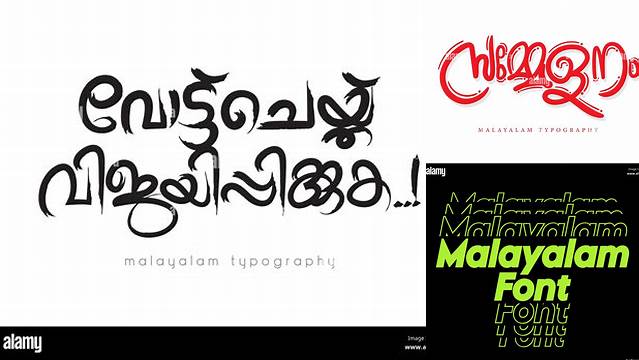
Malayalam Calligraphy Fonts Generator: A Comprehensive Guide
Hey guys! Ever wanted to spice up your Malayalam text with some seriously cool fonts? Well, you're in the right place! Today, we're diving deep into the world of the best Malayalam calligraphy fonts generators. We'll explore what makes a great font, how to find the perfect one for your needs, and even touch on some handy tips and tricks to make your designs pop. Get ready to transform your ordinary text into extraordinary art! So, let's jump right in.
What Makes a Great Malayalam Calligraphy Font?
So, what exactly are we looking for when we hunt down the best Malayalam calligraphy fonts? It's not just about pretty letters, folks. We're after fonts that are both visually appealing and functional. Here's a breakdown of the key features to consider:
- Readability: This is super important! A beautiful font is useless if nobody can read it. The best fonts strike a balance between style and clarity, ensuring that your message gets across without causing eye strain. Look for fonts with distinct letterforms, especially for characters that might look similar at first glance.
- Aesthetics: Of course, we want something that looks good! Calligraphy is all about the art, so choose fonts that match your desired style. Do you want something modern and sleek, or traditional and ornate? Consider the mood you want to create and select fonts that reflect that.
- Character Set: Malayalam has a unique alphabet, so it's essential to make sure the font includes all the necessary characters. Look for fonts that support a wide range of glyphs, including consonants, vowels, conjuncts, and special symbols. Without a complete character set, your text will end up looking incomplete and broken.
When selecting a Malayalam calligraphy font, consider its overall balance and harmony. The font should not only be aesthetically pleasing but also suitable for the context in which it will be used. Think about the project you're working on. Is it for a wedding invitation, a social media post, or a logo? Each context calls for a different style of font, so make sure you select the one that best fits the project's needs. Also, keep in mind the target audience. Make sure the font is appealing to them and easy to read. You can even try mixing and matching different fonts to create a more unique and personalized design. Just ensure that the fonts complement each other and don't clash. Ultimately, the best Malayalam calligraphy font is the one that meets your creative goals, looks amazing, and functions well in the design.
Top Malayalam Calligraphy Fonts Generators to Explore
Alright, let's get down to the good stuff. Where do you actually find these amazing Malayalam calligraphy fonts? Here are some top generators and resources to explore:
- Google Fonts: Google Fonts offers a wide selection of free fonts, including several Malayalam fonts. While the calligraphy options might be limited, it's a great place to start, especially if you're on a budget. You can easily download and use the fonts for both personal and commercial projects. They’re also well-optimized for web use, so your website will load quickly and look great. Regularly check their collection, as they're always adding new fonts.
- Font Squirrel: Font Squirrel is another excellent resource for free fonts. They have a curated collection of high-quality fonts, and you can often find some hidden gems for Malayalam calligraphy. They also provide a handy font identifier tool that helps you find fonts based on images – super useful if you see a font you like but don't know the name!
- DaFont: DaFont is a massive font repository with a huge variety of fonts. While not all are high-quality, you can often find some unique and creative Malayalam fonts here. Be sure to check the licensing terms before using them, as some may be for personal use only.
- Creative Market: Creative Market is a marketplace where you can purchase premium fonts, including many stylish Malayalam calligraphy fonts. The quality is generally very high, and you can find fonts designed by professional typographers. This is a great option if you want to invest in high-quality fonts for your designs.
- Behance/Dribbble: These platforms are fantastic for discovering font designers and seeing their work. You can often find links to download or purchase their fonts. This is also a great way to get inspired and find unique fonts that you might not find elsewhere. Plus, you get to support independent artists.
When you're exploring font generators, remember to filter your search to find the best Malayalam calligraphy fonts. Many sites offer search filters that allow you to specify the language and style of the font you are looking for. This is a great way to save time and find exactly what you need. Make sure to preview the font using your desired text. This will give you a good idea of what it looks like. This step is crucial to ensure it meets your needs before downloading or purchasing it. Also, many websites allow you to test the fonts directly within the site, so you can see how they look before you download. Don’t forget to consider the file formats of the fonts, as they affect compatibility. Common formats are .ttf (TrueType) and .otf (OpenType). Ensure they support the programs you’re using.
Conclusion: Unleash Your Creativity with Malayalam Calligraphy Fonts
Alright, folks, that's a wrap! We've covered the essentials of finding and using the best Malayalam calligraphy fonts. From choosing the right font to implementing it in your designs, you're now equipped to create stunning visuals that will impress. So go out there, experiment with different fonts, and let your creativity run wild! Happy designing!